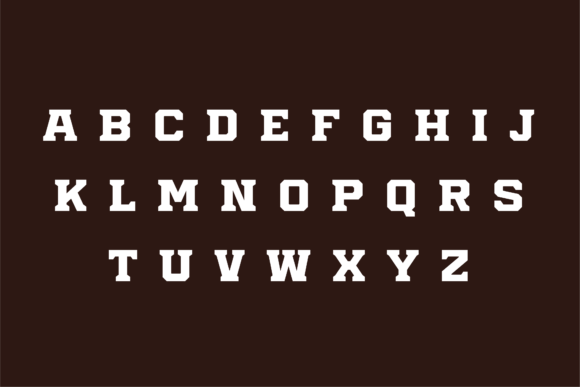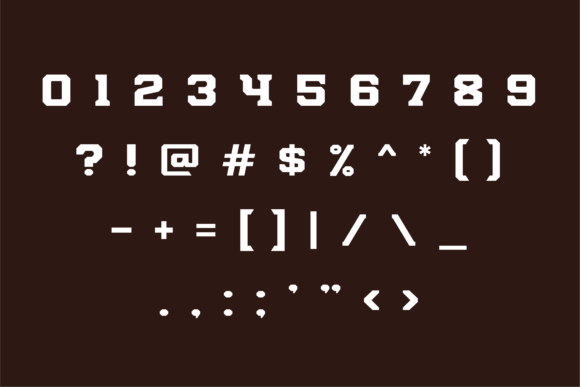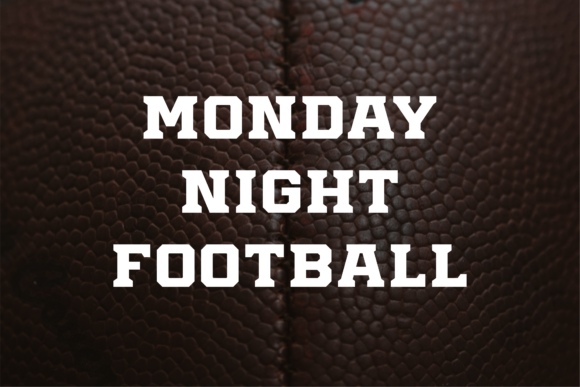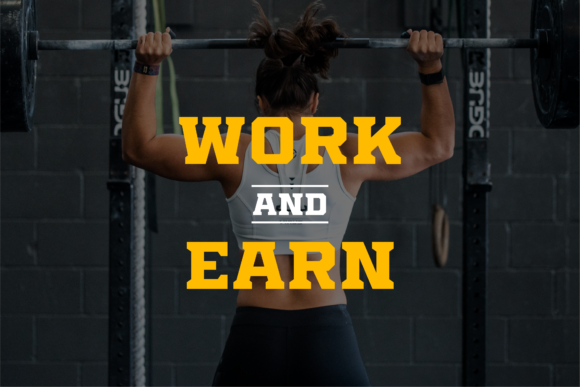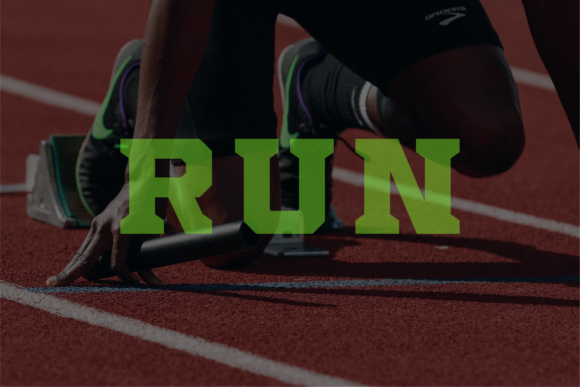
Introduction to Hustle Font
Hustle is a strong, sturdy & versatile display font that works extremely well with sports applications and various designs that require an assertive touch.
If you are looking for an extremely clean, bold, impactful choice, this is it .
Key Features of Hustle Font
Why Choose Hustle Font?